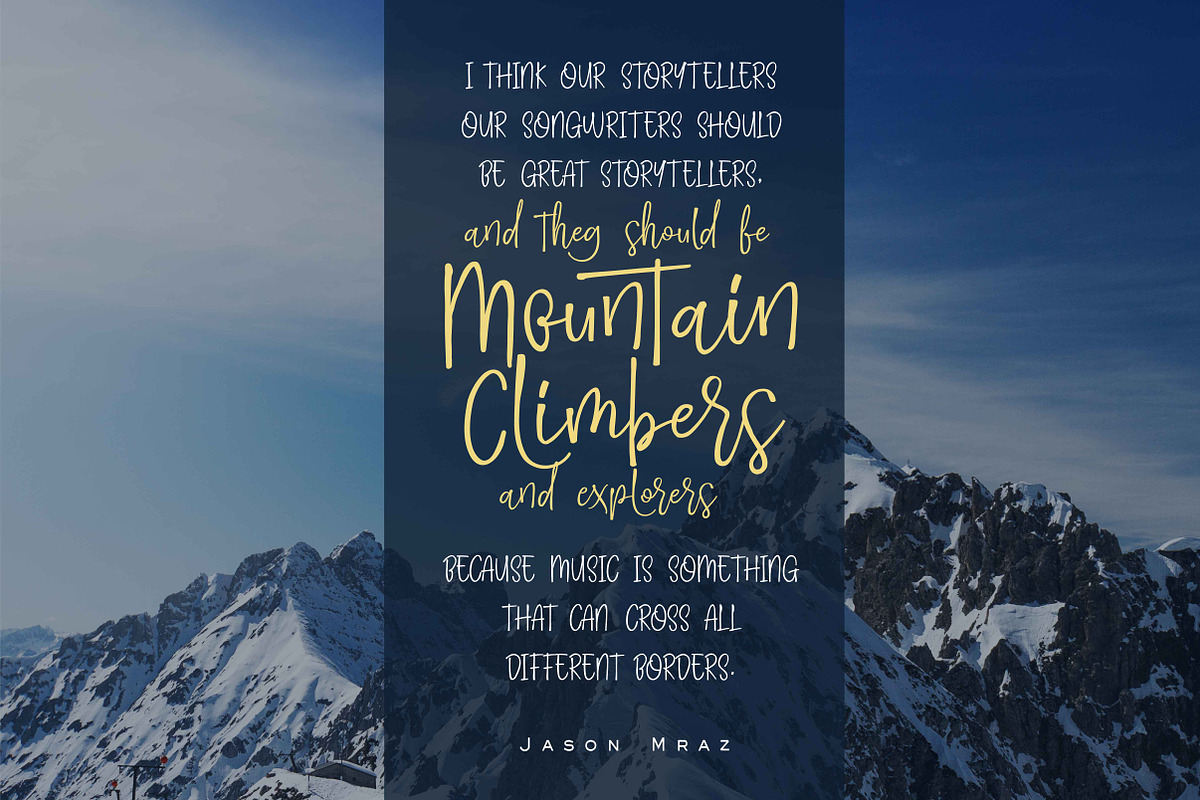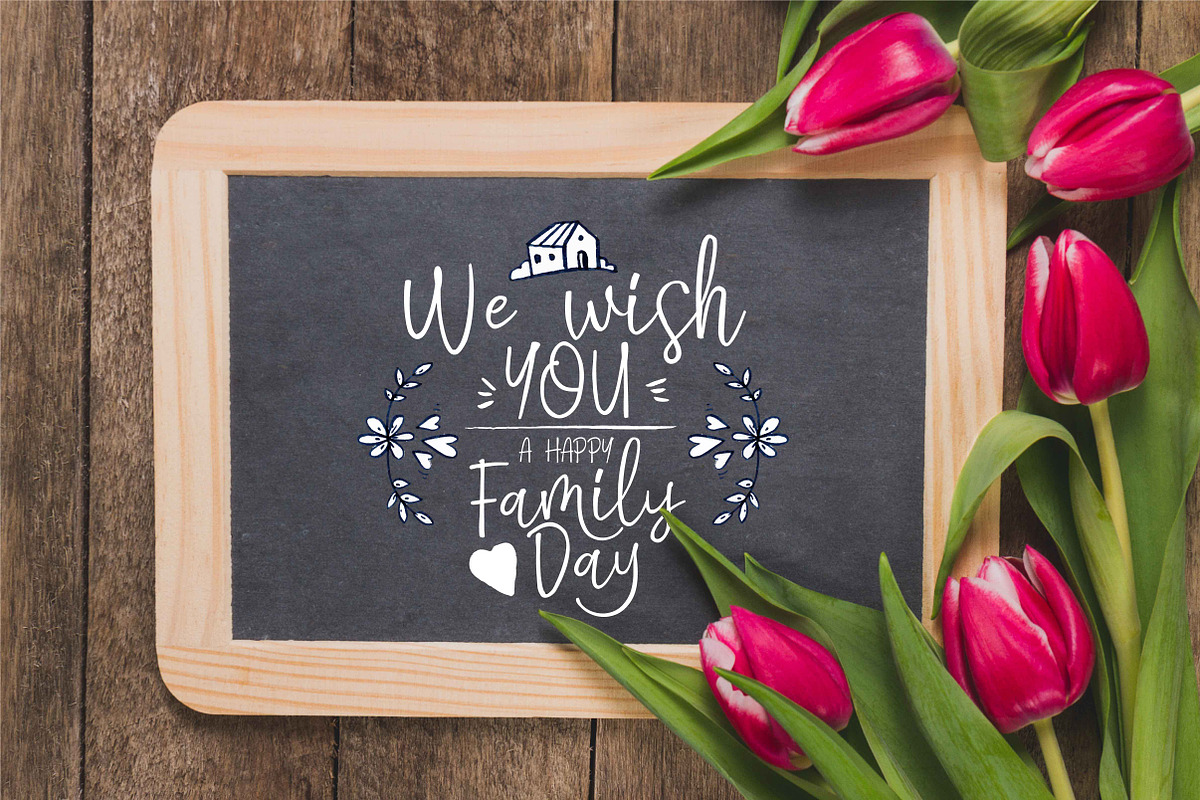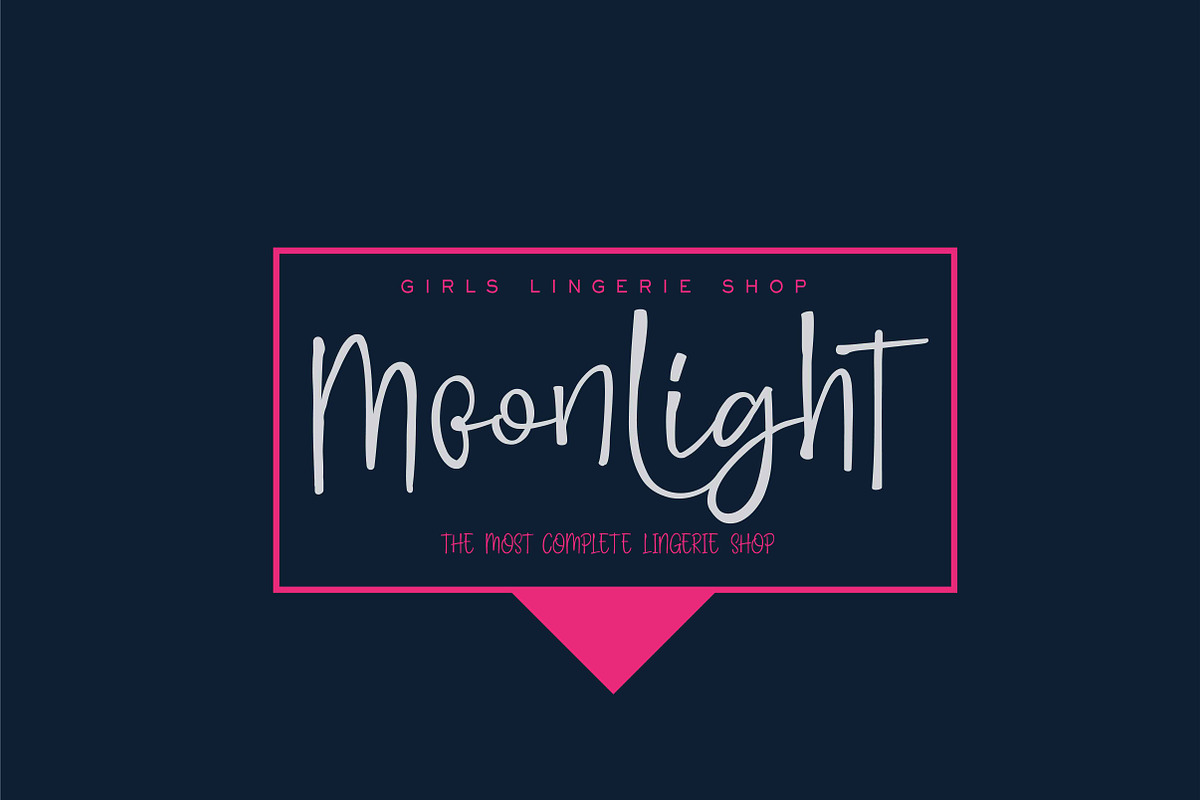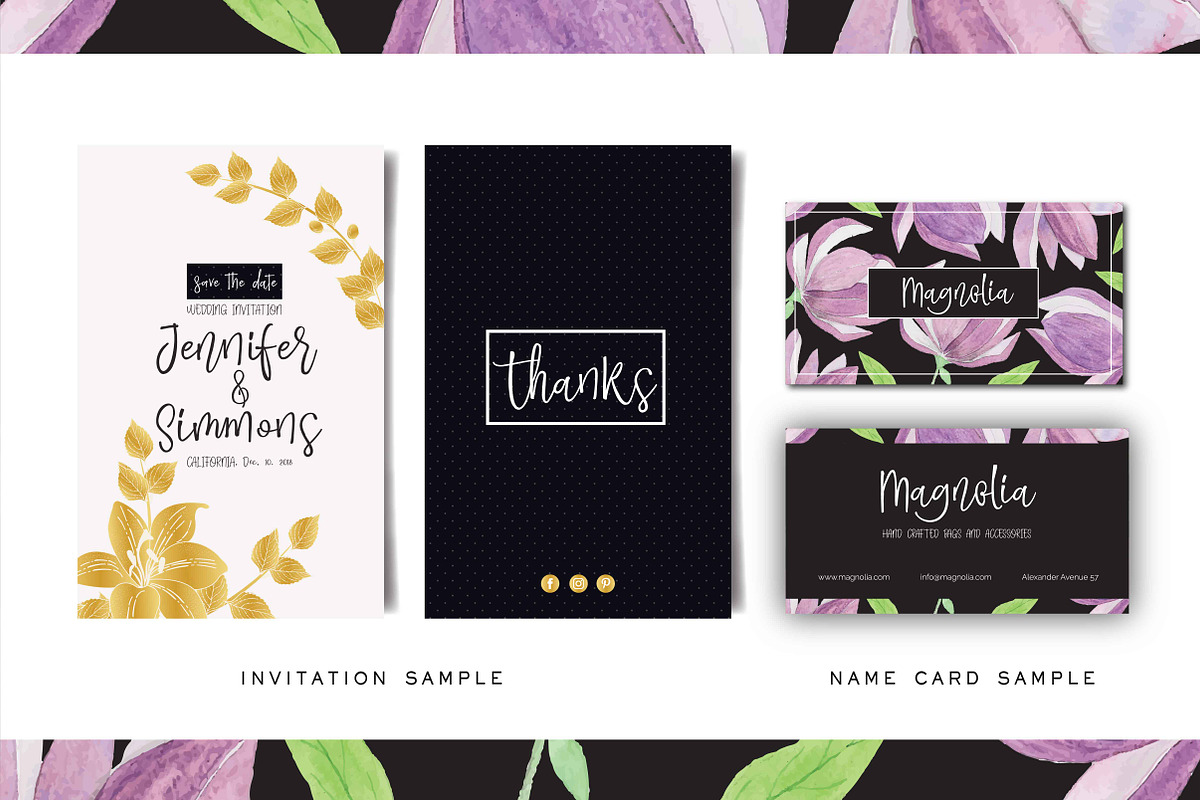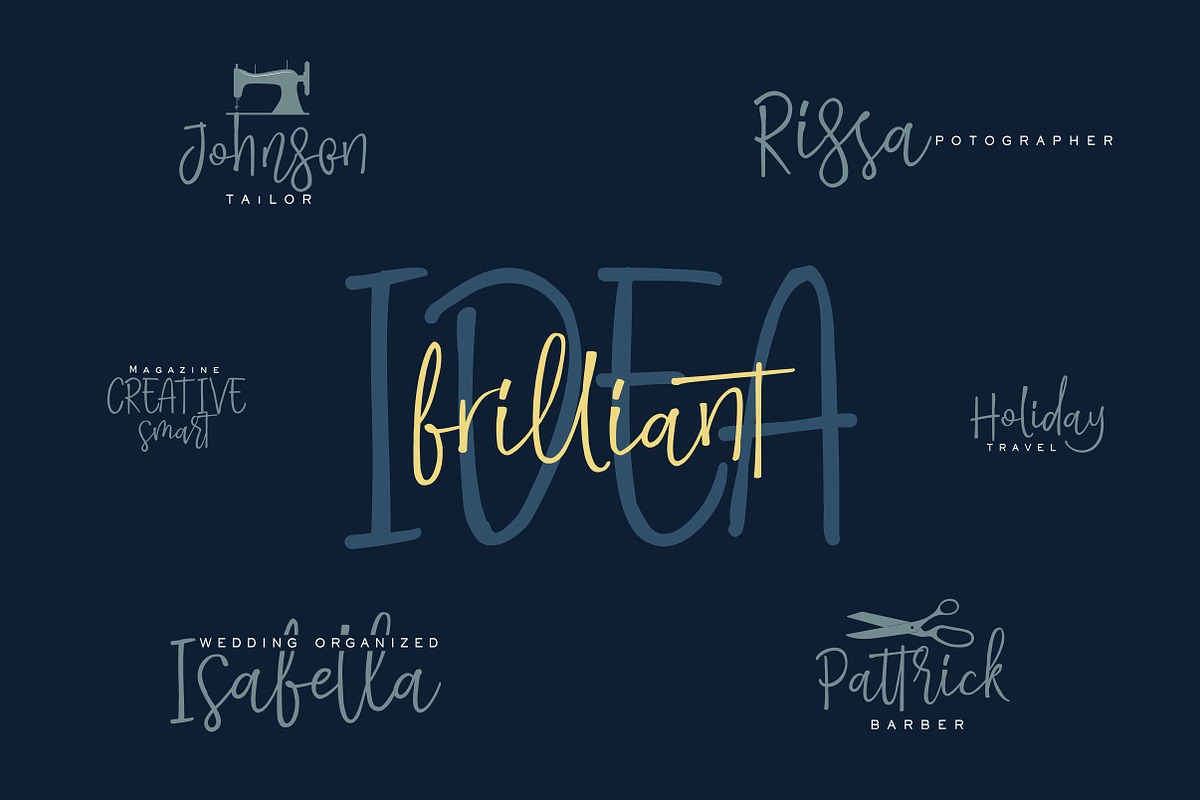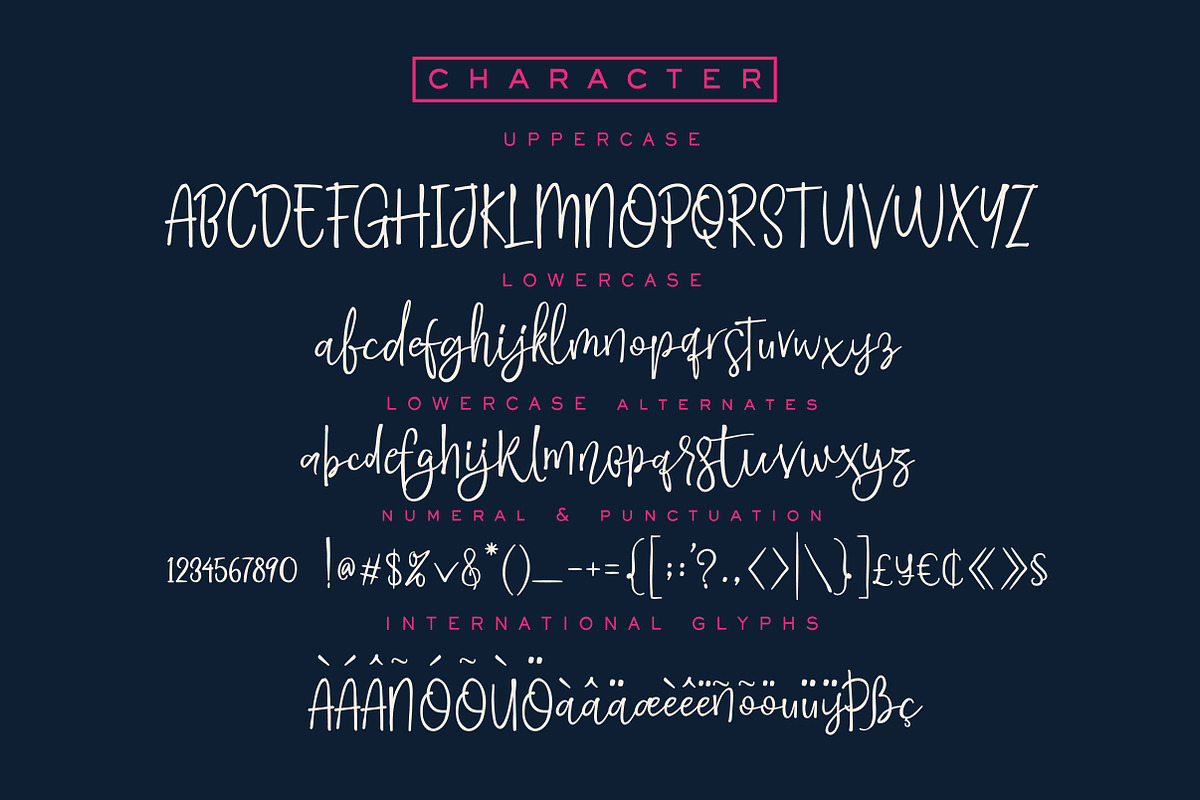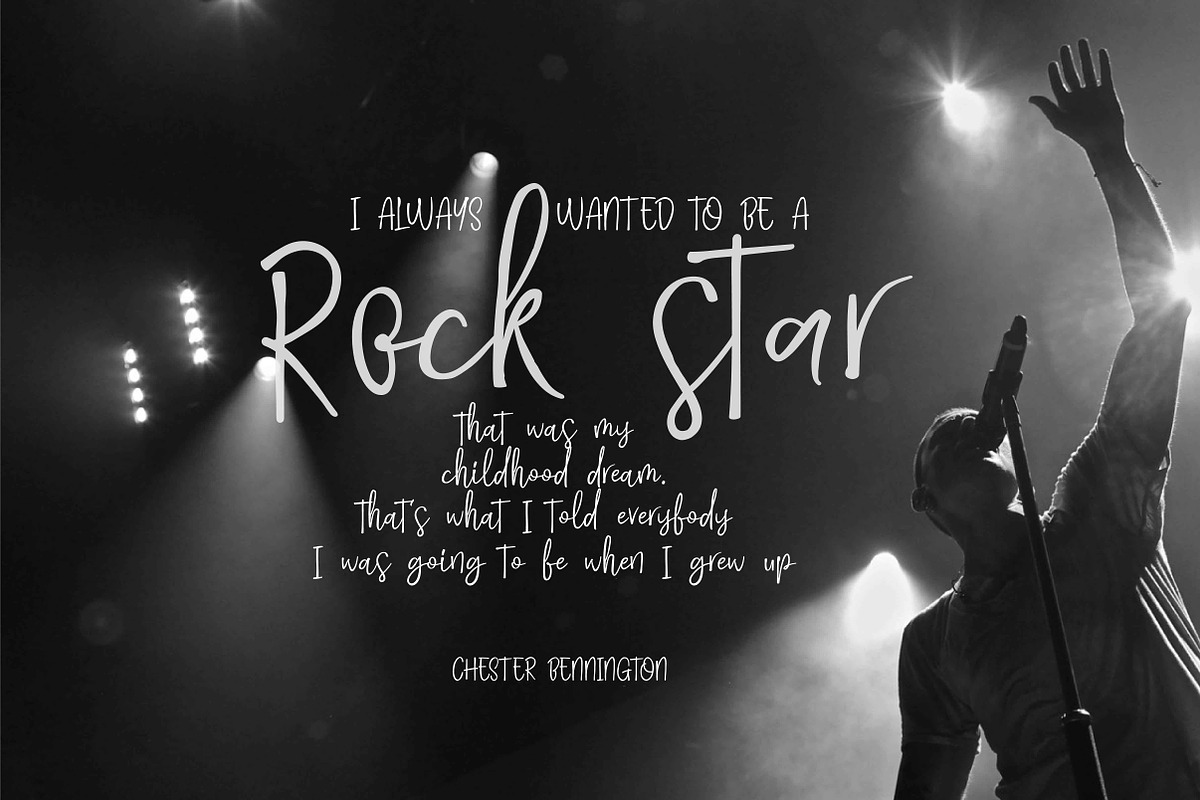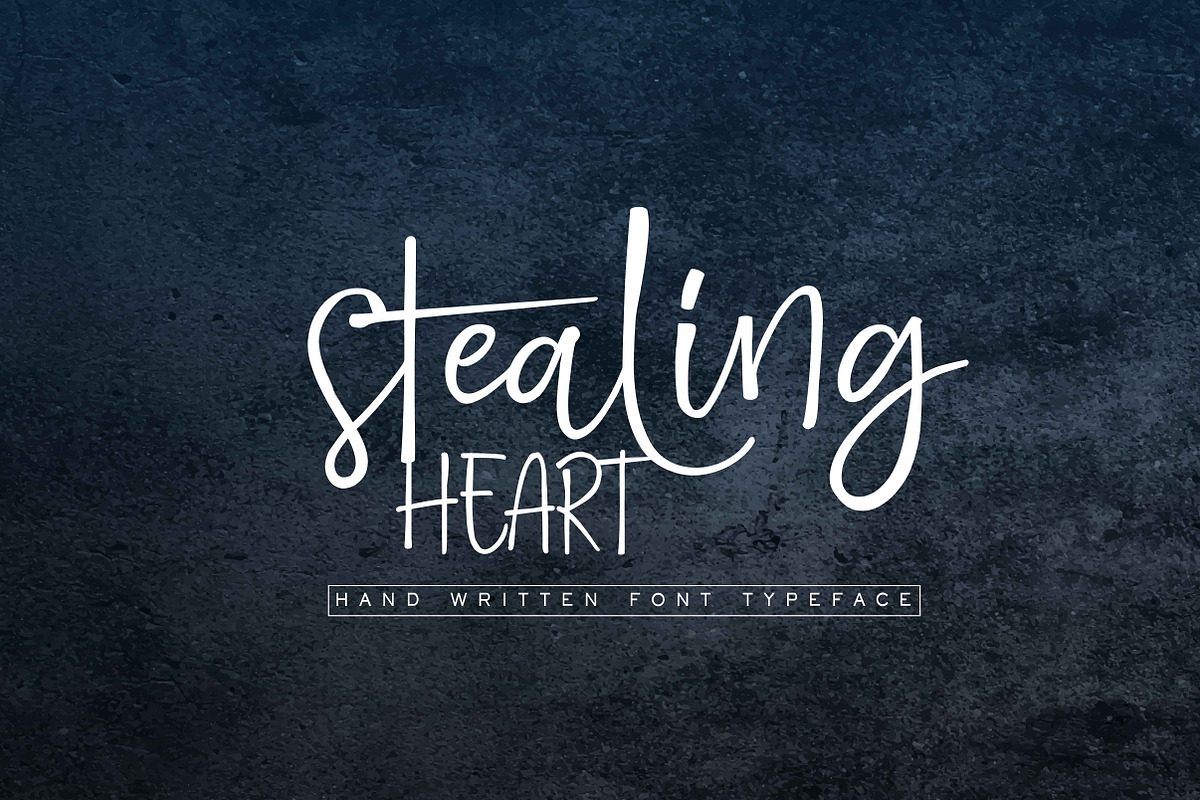
STEALING HEART Script
STEALING HEART Script is a beautiful Modern line Script Font Typeface , This line script will look gorgeous on all your designs, wedding invites, branding materials, logo's, t-shirt, poster, business cards, quotes and all project design other.
STEALING HEART Script contains standard characters, lowercase, Lowercase Alternates, uppercase, numbers, punctuation, ligatures and international glyphs.You will receive the OTF and TTF files.